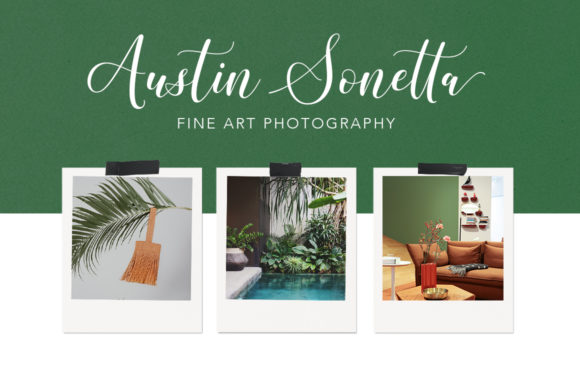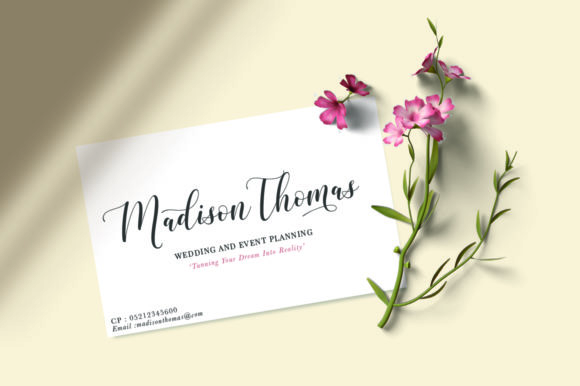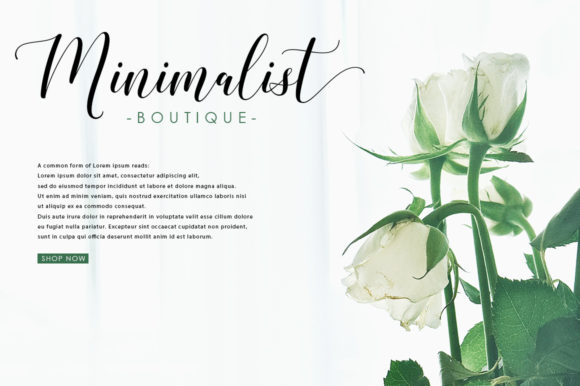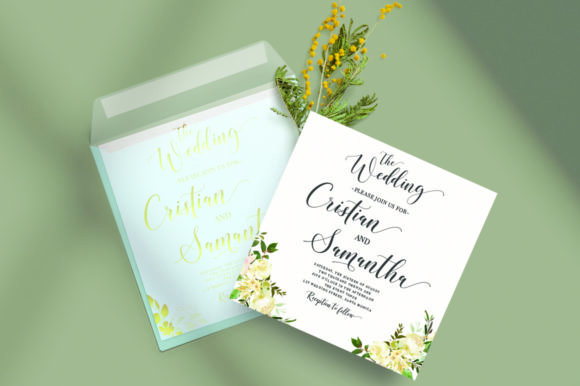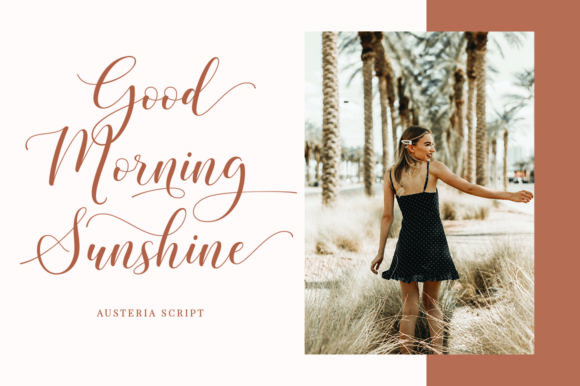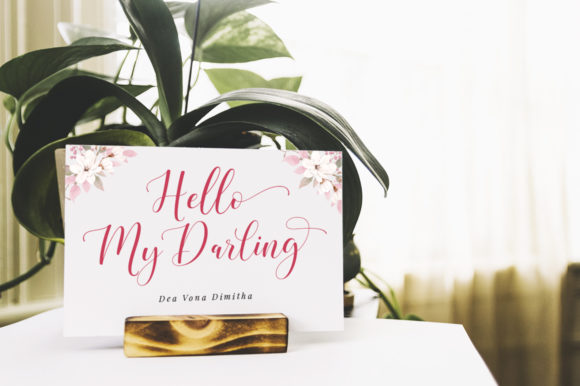
Austeria Font: Elevate Your Designs with a Relaxed and Flowing Handwritten Style
Are you tired of using the same old fonts in your designs? Do you want to add a touch of elegance and sophistication to your projects? Look no further than Austeria Font, a beautiful and relaxed handwritten font that’s perfect for designers and crafters alike. In this article, we’ll take a closer look at Austeria Font, its features, and how you can use it to elevate your designs.
What is Austeria Font?
Austeria Font is a stunning handwritten font that’s designed to add a touch of elegance and whimsy to your designs. With its relaxed and flowing style, Austeria Font is perfect for creating beautiful and eye-catching designs that will leave a lasting impression on your audience. Whether you’re a designer, crafter, or simply someone who loves to create, Austeria Font is a must-have in your font collection.
Key Features of Austeria Font
So, what makes Austeria Font so special? Here are some of its key features:
- Relaxed and Flowing Style: Austeria Font has a beautiful, relaxed style that’s perfect for creating designs that are elegant and sophisticated.
- PUA Encoded: Austeria Font is PUA encoded, which means you can access all of the glyphs and swashes with ease. This makes it easy to customize your designs and add your own personal touch.
- Handwritten Style: Austeria Font is a handwritten font, which gives it a personal and unique touch. It’s perfect for creating designs that are warm and inviting.
How to Use Austeria Font in Your Designs
Now that you know more about Austeria Font, let’s take a look at how you can use it in your designs. Here are a few ideas to get you started:
- Branding and Packaging: Austeria Font is perfect for creating beautiful and eye-catching branding and packaging designs. Use it to create logos, labels, and packaging that will stand out on store shelves.
- Stationery and Invitations: Austeria Font is also great for creating stationery and invitations. Use it to create beautiful and elegant wedding invitations, greeting cards, and more.
- Digital Designs: Austeria Font can also be used in digital designs, such as social media graphics, blog posts, and more. Use it to add a touch of elegance and sophistication to your digital designs.
Why Choose Austeria Font?
So, why should you choose Austeria Font for your designs? Here are a few reasons:
- Unique and Elegant Style: Austeria Font has a unique and elegant style that’s perfect for creating designs that stand out.
- PUA Encoded: Austeria Font is PUA encoded, which means you can access all of the glyphs and swashes with ease.
- Great for Designers and Crafters: Austeria Font is perfect for designers and crafters who want to add a touch of elegance and sophistication to their designs.
In conclusion, Austeria Font is a beautiful and relaxed handwritten font that’s perfect for designers and crafters alike. With its elegant and flowing style, Austeria Font is sure to elevate your designs and add a touch of sophistication. Whether you’re creating branding and packaging designs, stationery and invitations, or digital designs, Austeria Font is a must-have in your font collection.